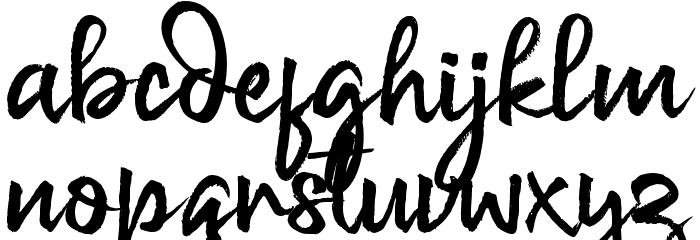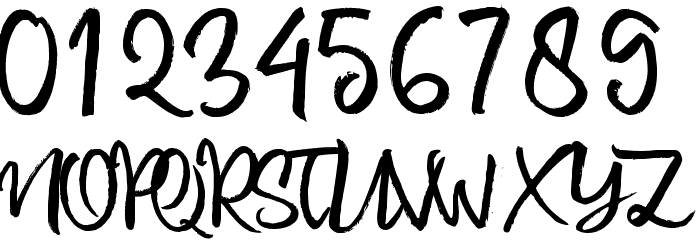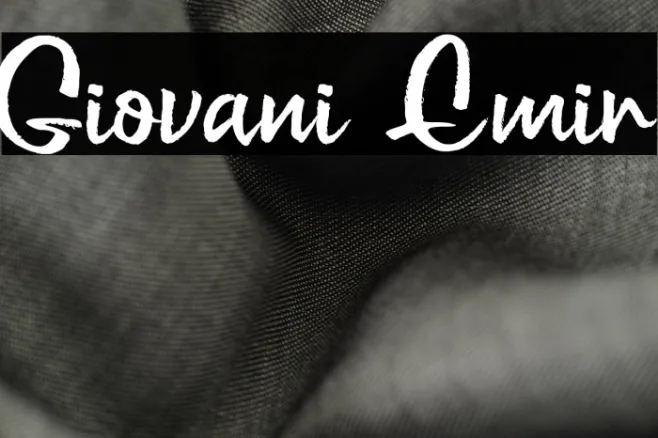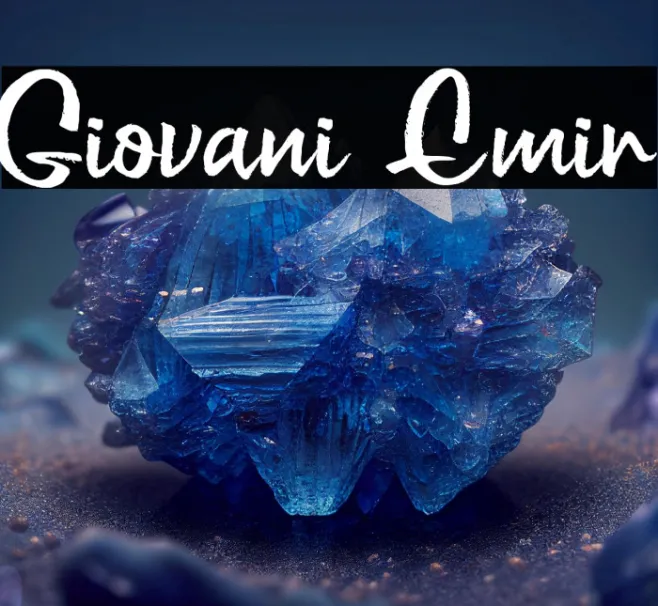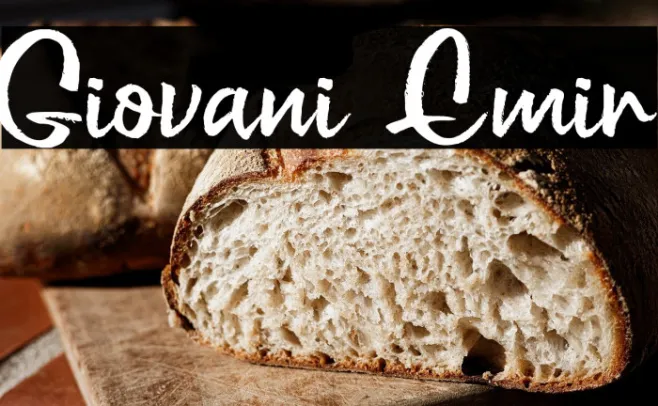
Giovani Emir Font
This font exhibits a dynamic and expressive handwritten style, characterized by its fluid and bold strokes. The uppercase letters are slightly more structured, maintaining a balance between elegance and casual flair, while the lowercase letters flow seamlessly with a natural rhythm. The numerals are consistent with the overall style, offering a playful yet legible appearance. Special characters are integrated smoothly, enhancing the font's versatility. The brush-like texture adds a personal touch, making it suitable for creative and artistic projects. Its unique charm lies in the combination of boldness and fluidity, capturing attention while maintaining readability.
A bold, expressive handwritten font with fluid strokes and a brush-like texture.
- Font: Giovani Emir
- Proposed Projects: Ideal for branding, invitations, greeting cards, and artistic projects where a personal touch is desired.
- Use Case: Logos, Headlines, Artistic projects